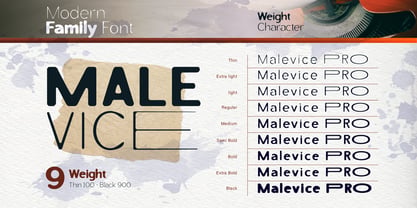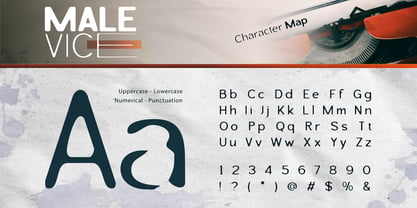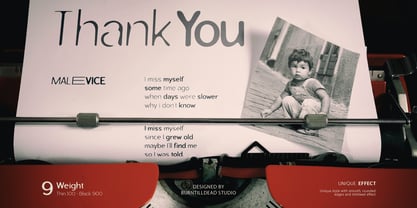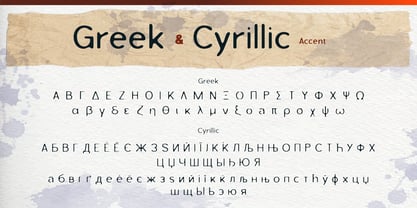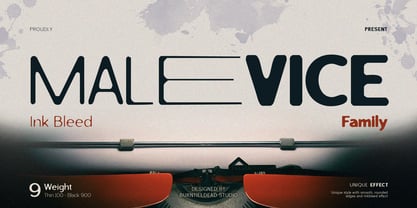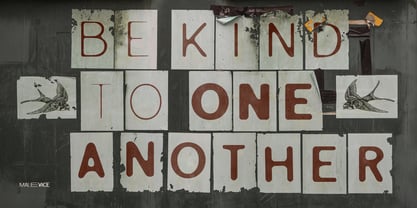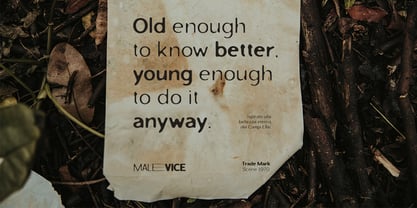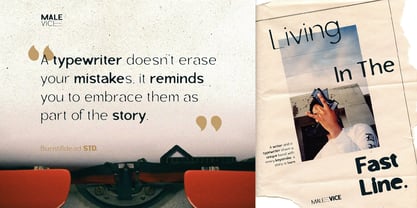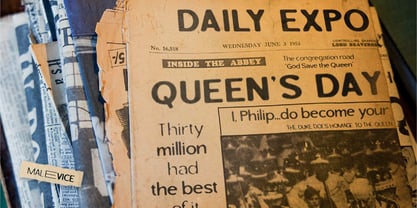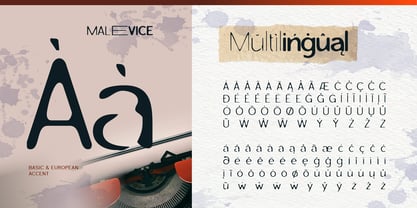
Malevice Inkbleed
von Burntilldead
Die Schriftfamilie Malevice Inkbleed wurde von Eric Kurniawan entworfen und von Burntilldead veröffentlicht. Malevice Inkbleed enthält 9 Stile und Familienpaketoptionen. Mehr über diese Familie
Introducing Malevice Inkbleed – a unique font with smooth, rounded edges and an eye-catching inkbleed effect. With 9 different weights from Thin to Black, this font makes it easy to create bold and striking designs.
The inkbleed effect adds a vintage and classic touch while keeping it fresh and unique. Plus, the built-in alternates ensure your typography stays stylish and attention-grabbing.
And that’s not all! Malevice Inkbleed also supports Greek and Cyrillic alphabets, making it even more versatile for global designs.
Perfect for branding, posters, packaging, and more—Malevice Inkbleed is a must-have for designers who love a blend of classic charm and modern style!
Features:
• A - Z set (Uppercase & Lowercase)
• Number
• Punctuation
• Alternates
• Multilingual
Designer: Eric Kurniawan
Foundry: Burntilldead